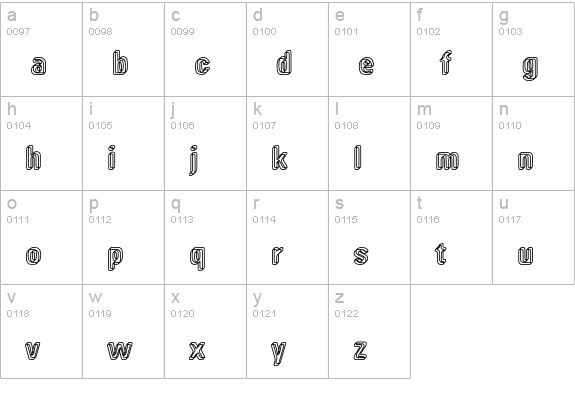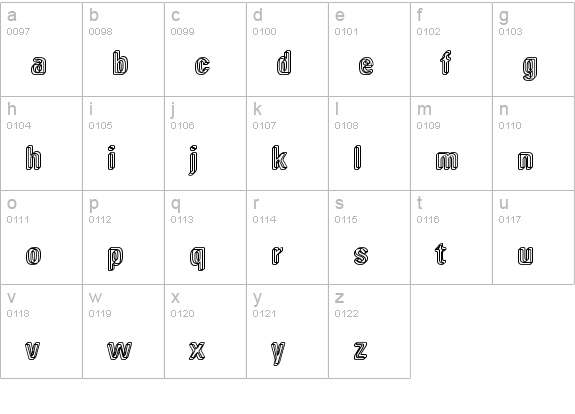
LowTech-Fat Font Details
Introducing LowTech-Fat font, a unique and eye-catching typeface that combines a retro aesthetic with a modern twist. This font features bold, chunky letterforms that exude a sense of strength and confidence, making it perfect for headlines, logos, and branding projects. LowTech-Fat font is designed to stand out and make a statement, with its thick strokes and distinctive style. Whether you're looking to add a touch of vintage charm to your designs or create a bold and impactful look, this font has you covered. Best of all, LowTech-Fat font is completely free to download at FontsMarket.com. That's right – you can add this stunning typeface to your collection without spending a dime. So why wait? Download LowTech-Fat font today and start creating standout designs that demand attention.